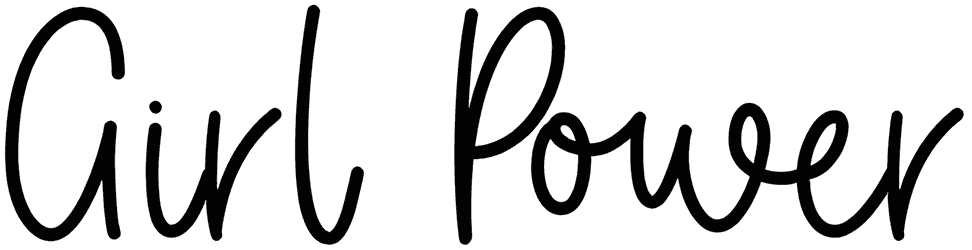
Girl Power Font
Among the handwritten fonts that bring back warm and nostalgic feelings from someone else, Girl Power is reminiscent of a pleasant mess. This script font has connections that make it difficult to read, but they have added a personal flavor to it that can significantly impact attracting the audience’s attention.